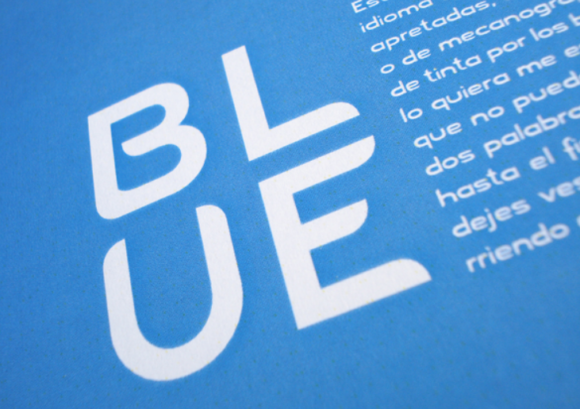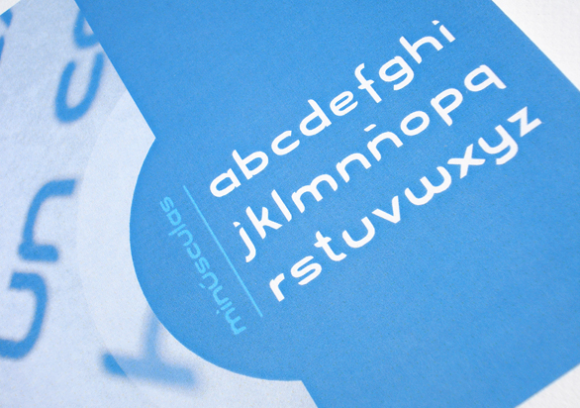
Introducing Blue Font: A Simple yet Striking Display Font
Are you tired of using the same old fonts in your designs? Look no further than Blue Font, a fresh and modern display font that’s perfect for adding a touch of elegance to your projects. With its clean and simple design, Blue Font is a versatile typeface that can be used in both formal and non-formal designs, making it a must-have for designers and crafters alike.
The Beauty of Blue Font
Blue Font is a beautifully crafted font that boasts a neat and beautiful arrangement of letters. Its clean feel makes it perfect for designs that require a touch of sophistication, while its casual vibe ensures it remains approachable and friendly. Whether you’re working on a formal business project or a more relaxed creative endeavor, Blue Font is the perfect choice.
Key Features of Blue Font
- Clean and Simple Design: Blue Font features a clean and simple design that’s perfect for creating stunning visual effects.
- Neat Letter Arrangement: The font’s letters are arranged in a beautiful and neat manner, making it perfect for use in both formal and non-formal designs.
- Versatile: Blue Font is a versatile typeface that can be used in a wide range of projects, from business cards to posters, and from websites to social media graphics.
- Easily Readable: The font is designed to be easily readable, even at smaller sizes, making it perfect for use in body text and captions.
Uses of Blue Font
Blue Font is a versatile typeface that can be used in a wide range of projects, including:
- Branding and Identity: Use Blue Font to create stunning logos, business cards, and letterheads that make a lasting impression.
- Advertising and Marketing: Blue Font is perfect for use in advertising and marketing materials, such as posters, flyers, and social media graphics.
- Web Design: Use Blue Font to create clean and modern websites that are both visually appealing and easy to navigate.
- Crafting and DIY Projects: Blue Font is also perfect for use in crafting and DIY projects, such as making signs, banners, and other decorative items.
Tips for Using Blue Font
Here are some tips for getting the most out of Blue Font:
- Use it as a Display Font: Blue Font is designed to be used as a display font, so use it to add a touch of elegance to your headings and titles.
- Experiment with Colors: Blue Font looks great in a range of colors, so don’t be afraid to experiment and find the perfect color to match your brand or design.
- Pair it with Other Fonts: Blue Font can be paired with other fonts to create a unique and visually appealing design.
| Font Name | Blue Font |
| Author | Daniel Basualdo |
In conclusion, Blue Font is a simple yet striking display font that’s perfect for designers and crafters alike. With its clean and simple design, neat letter arrangement, and versatility, Blue Font is a must-have for anyone looking to add a touch of elegance to their designs. So why not give it a try and see the difference it can make?